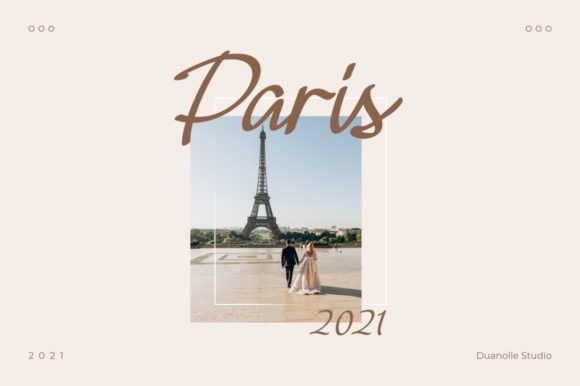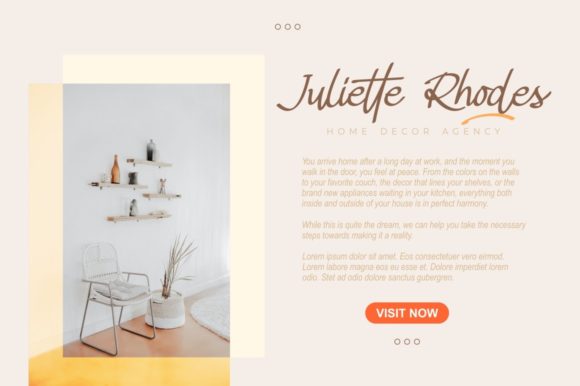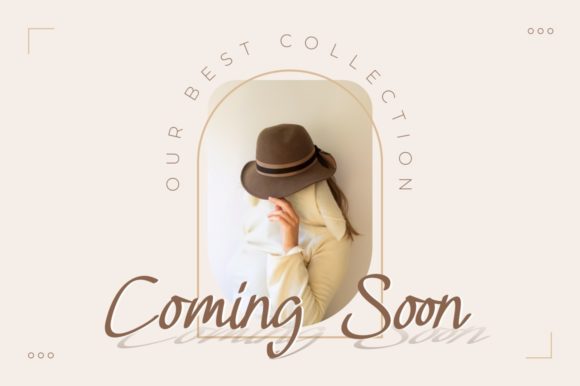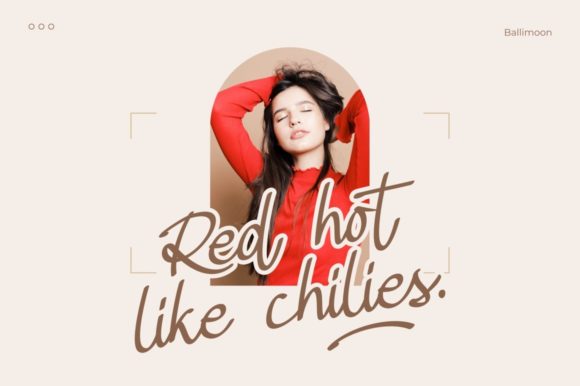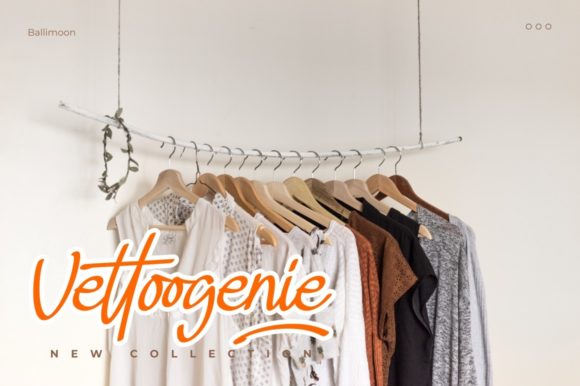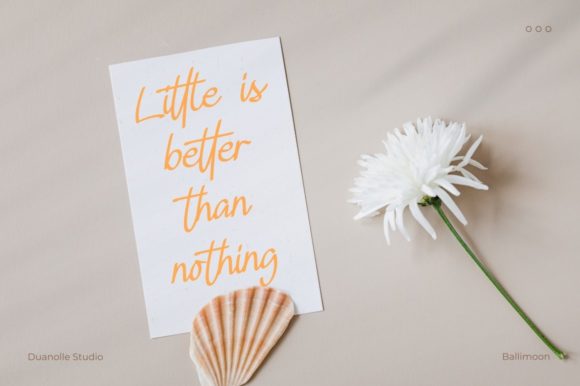
Introduction to Ballimoon Font
Balimoon is a beautiful and refined script font.
It has a classy, elegant and modern look that can be used for logos, branding, invitations, stationery, wedding designs, social media posts, and much more This font is PUA encoded which means you can access all of the glyphs and swashes with ease.
Key Features of Ballimoon Font
Why Choose Ballimoon Font?
Ballimoon Font offers exceptional quality and versatility, making it a valuable addition to your design toolkit. Whether you’re creating for personal projects or commercial use, Ballimoon Font delivers professional results.